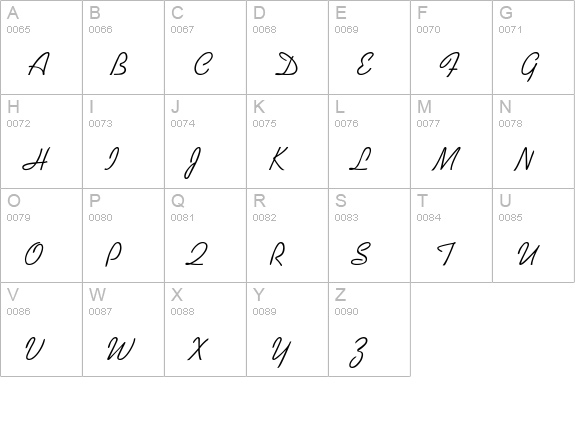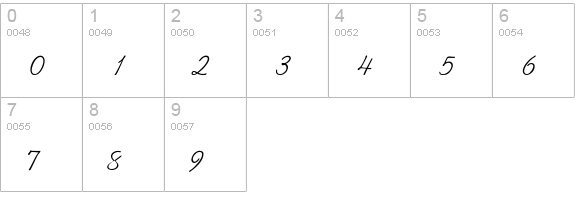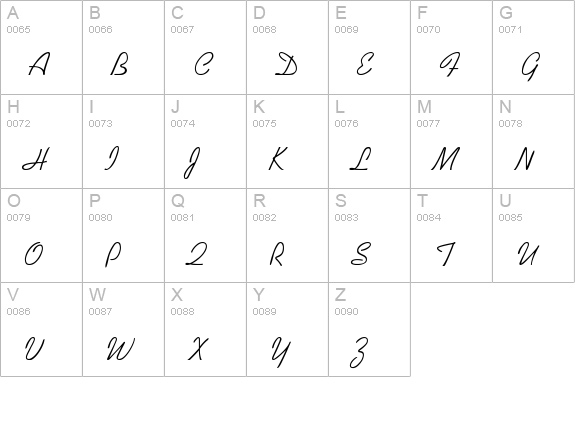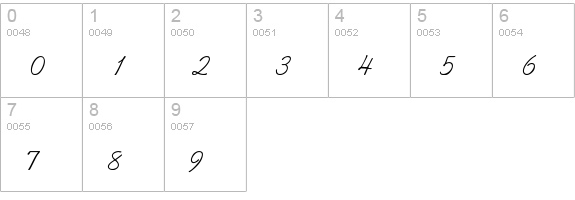
Kaufmann-Thin Font Details
Kaufmann-Thin is a delicate, low-contrast variant in the Kaufmann typeface family \xE2\x80\x94 well suited to fashion editorial, minimal branding, and high-contrast display.
Kaufmann-Thin font, a delicately crafted typeface that exudes elegance and sophistication. Its slender and graceful letterforms effortlessly captivate the eye, making it perfect for a variety of design projects. Whether you're creating a refined logo, a stylish invitation, or a chic editorial layout, this font is sure to elevate your work to new heights. With its thin strokes and balanced proportions, Kaufmann-Thin font brings a modern and contemporary touch to any design. Its clean and crisp lines add a touch of simplicity and minimalism, while its subtle curves and flourishes add a hint of playfulness and charm. This versatile font is equally suited for both headlines and body text, ensuring a cohesive and harmonious visual experience throughout your entire project. What sets Kaufmann-Thin font apart is not only its stunning aesthetics but also its accessibility. It is freely available to download at FontsMarket.com, allowing designers and creatives from all walks of life to enjoy its beauty without any constraints. Its availability as a free font ensures that everyone has the opportunity to incorporate its elegance into their projects, regardless of budget or resources. So why wait? Download Kaufmann-Thin font today and let its timeless beauty transform your designs. Whether you're working on a personal project or a professional endeavor, this font will undoubtedly make a lasting impression. Embrace the freedom of expression and creativity that Kaufmann-Thin font offers, and unlock a world of design possibilities.